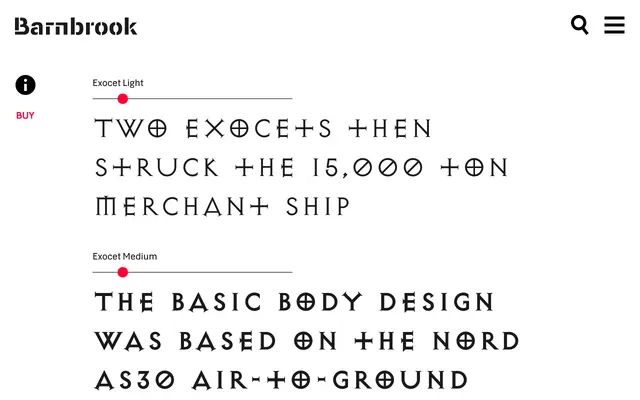
Exocet
A display typeface reinterpreting primitive Greek and Roman stone-carved letterforms as a contemporary visual language, not as revival.
Drawing on ancient Greek and Roman inscription rather than Renaissance typefaces, Exocet deliberately sidesteps pastiche to arrive at something with genuine archaic weight and idiosyncrasy. It has found wide use across food packaging, video games and cultural projects, pointing to the versatility of its rough-edged authority. The family now covers Cyrillic and Central European languages alongside Latin, broadening its reach considerably.
Based on primitive Greek and Roman stone carving, Exocet is a display typeface drawing on ancient inscriptional letterforms rather than Renaissance revival conventions, placing it firmly in the display/archaic category.